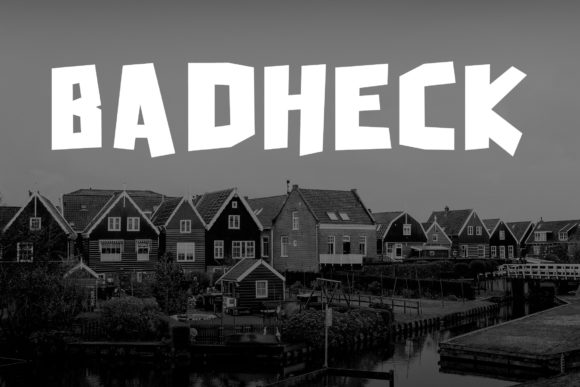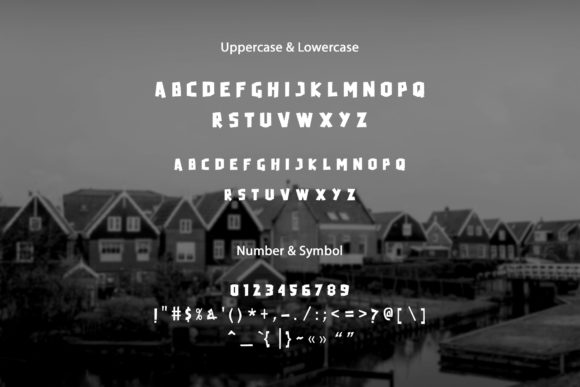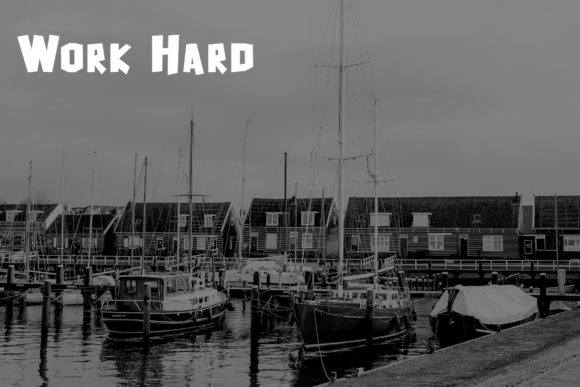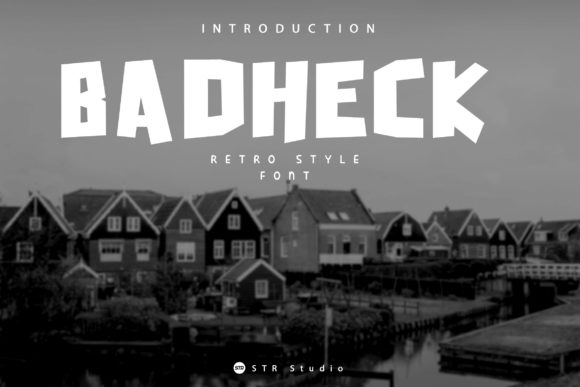
Introducing Badheck Font: The Ultimate Display Font for a Friendly and Cartoon-Like Touch
Are you tired of using the same old fonts in your designs? Do you want to add a touch of fun and personality to your creations? Look no further than Badheck Font, a cool, fun, and thick lettered display font that’s perfect for adding a friendly and cartoon-like touch to your projects.
What Makes Badheck Font Unique?
Badheck Font is a one-of-a-kind display font that’s sure to grab attention. Its unique and interesting design makes it stand out from the crowd, and its thick lettering gives it a bold and playful look that’s perfect for headlines, titles, and more.
Whether you’re a designer, crafter, or DIY enthusiast, Badheck Font is a versatile font that can be used in a variety of creative projects. From posters and flyers to invitations and crafts, this font is sure to add a touch of personality and whimsy to your designs.
The Benefits of Using Badheck Font
So why choose Badheck Font over other display fonts? Here are just a few benefits of using this amazing font:
- Unique and eye-catching design: Badheck Font is a true showstopper, with a design that’s sure to grab attention and make your projects stand out.
- Thick and bold lettering: The thick lettering of Badheck Font gives it a bold and playful look that’s perfect for headlines, titles, and more.
- Versatile and flexible: Badheck Font can be used in a variety of creative projects, from posters and flyers to invitations and crafts.
- Easy to read: Despite its bold and playful design, Badheck Font is easy to read, making it perfect for use in titles, headings, and other display text.
How to Use Badheck Font in Your Designs
Using Badheck Font in your designs is easy! Here are a few tips to get you started:
- Use it as a headline font: Badheck Font is perfect for use in headlines and titles, where its bold and playful design can really make an impact.
- Add it to your posters and flyers: Whether you’re creating a poster for a event or a flyer for a promotion, Badheck Font is sure to grab attention and make your design stand out.
- Use it in your crafts: Badheck Font is perfect for use in a variety of craft projects, from handmade cards to DIY decorations.
- Experiment with different colors and textures: Badheck Font looks great in a variety of colors and textures, so don’t be afraid to experiment and find the look that works best for your project.
| Font Name | Badheck Font |
| Author | NOX Labs |
If you’re looking for a fun and unique display font to add a friendly and cartoon-like touch to your designs, look no further than Badheck Font. With its bold and playful design, versatile and flexible use, and easy readability, this font is sure to become a favorite in your design arsenal.